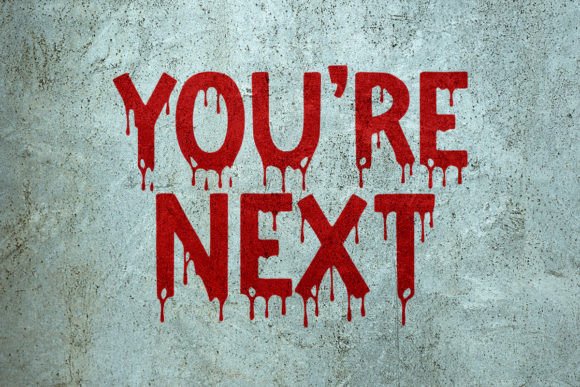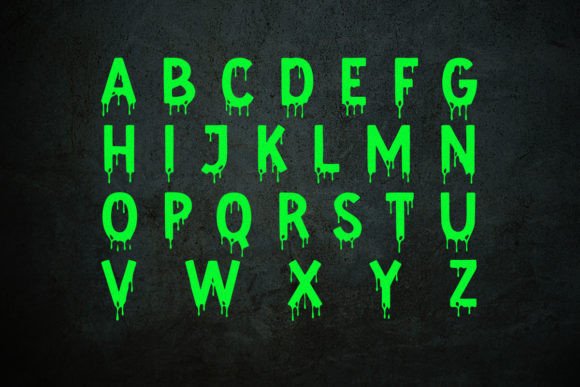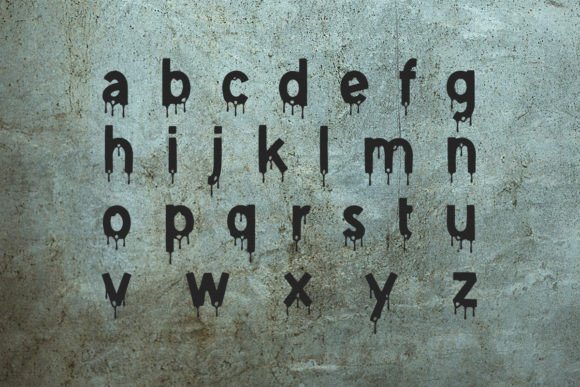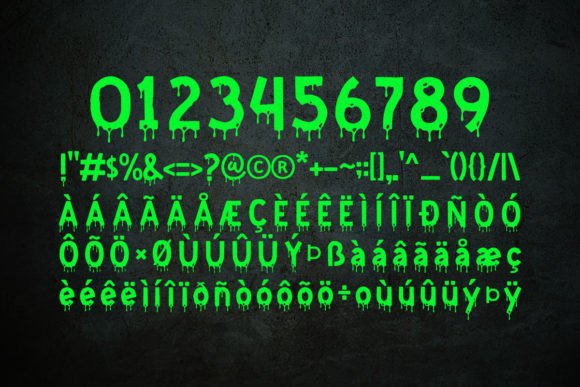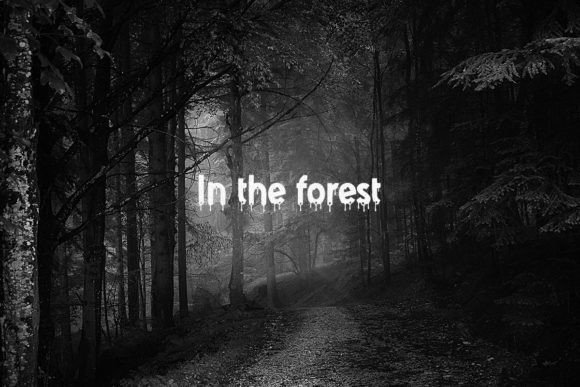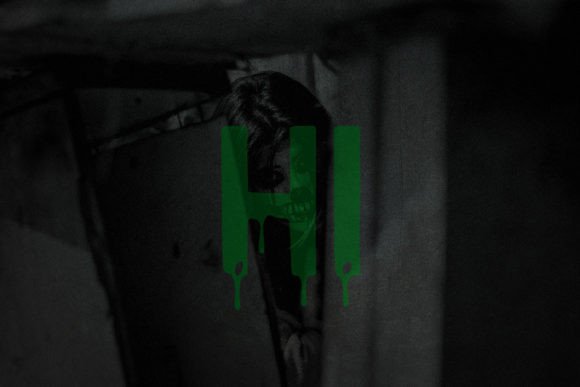
Unleash the Terror with Deadly Poison I Font: The Ultimate Typeface for Horror Enthusiasts
Are you a horror movie buff, a graphic artist, or simply someone who appreciates the aesthetic of the undead? Look no further than the Deadly Poison I font, a typeface that embodies the perfect blend of blood, death, and style. This font is designed to add a touch of macabre elegance to any project, making it an ideal choice for a wide range of creative endeavors.
The Perfect Font for Horror Movies and Graphic Artists
Deadly Poison I font is specifically crafted to cater to the needs of horror movie enthusiasts and graphic artists. Its unique design elements are inspired by the darker side of life, making it an instant hit among those who appreciate the horror genre. Whether you’re working on a video game title, poster, outfit design, album cover, or horror movie project, this font is sure to add a level of sophistication and eeriness that will leave your audience captivated.
Key Features of Deadly Poison I Font
So, what makes Deadly Poison I font stand out from the rest? Here are some of its key features:
- Unique Design: Deadly Poison I font boasts a distinctive design that is both stylish and unsettling. Its intricate details and bold strokes make it perfect for creating eye-catching titles and headings.
- Versatility: This font is incredibly versatile and can be used for a wide range of projects, from horror movies and video games to posters, album covers, and outfit designs.
- High-Quality: This font is designed to deliver high-quality results, ensuring that your projects look professional and polished.
- Choose the Right Project: Deadly Poison I font is perfect for projects that require a touch of horror or darkness. Consider using it for Halloween-themed projects, horror movie titles, or video game designs.
- Experiment with Different Styles: Don’t be afraid to experiment with different styles and techniques when using Deadly Poison I font. Try pairing it with other fonts or using it in combination with images and graphics.
- Pay Attention to Typography: Typography is crucial when working with Deadly Poison I font. Pay attention to font size, spacing, and alignment to ensure that your text looks balanced and visually appealing.
Inspiration from the Masters: How Deadly Poison I Font Can Elevate Your Designs
Deadly Poison I font draws inspiration from some of the most iconic horror movies and graphic designs. Here are a few examples of how this font can elevate your designs:
- Horror Movie Posters: Create eye-catching posters for horror movies using Deadly Poison I font. Its bold and eerie design is sure to grab the attention of horror fans.
- Video Game Titles: Use Deadly Poison I font to create terrifying video game titles that will leave players on the edge of their seats.
- Album Covers: Add a touch of darkness and mystery to your album covers with Deadly Poison I font. Its unique design is sure to make your album stand out.
| Font Name | Deadly Poison I Font |
| Author | typelinestudio |